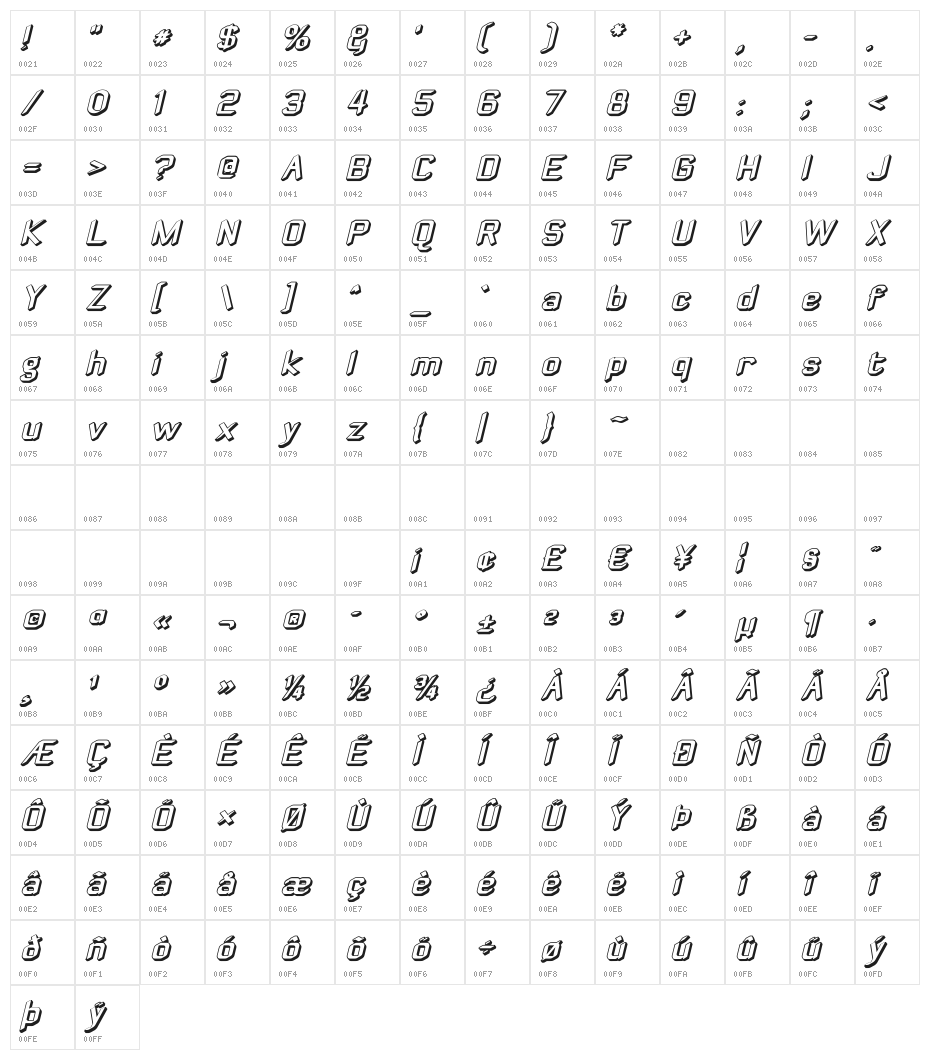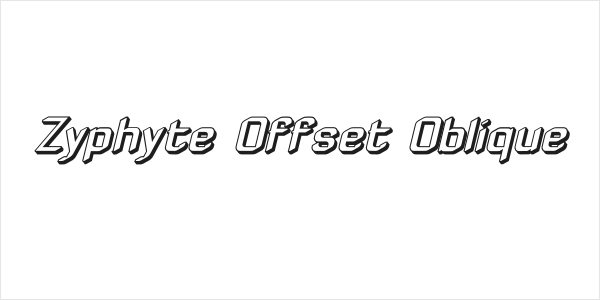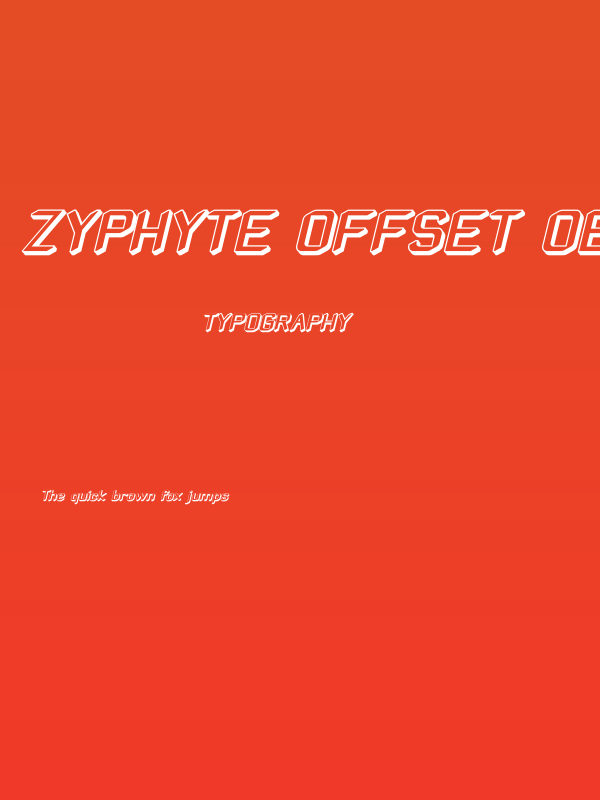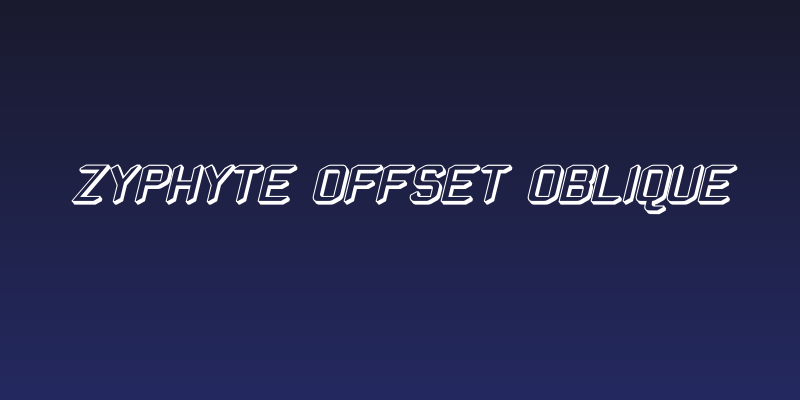
Zyphyte Offset Oblique Font
Zyphyte Offset Oblique Description
This font features a bold and dynamic style with an offset oblique design, creating a sense of movement and depth. The characters are outlined with a shadow effect, enhancing their three-dimensional appearance. The uppercase and lowercase letters maintain a consistent slant, contributing to a cohesive and energetic look. Numbers and special characters follow the same stylistic approach, ensuring uniformity across all glyphs. The font's strong presence makes it suitable for eye-catching designs.
| Proposed Projects | Ideal for sports branding, dynamic posters, video game titles, and any project requiring a bold, energetic typeface. |